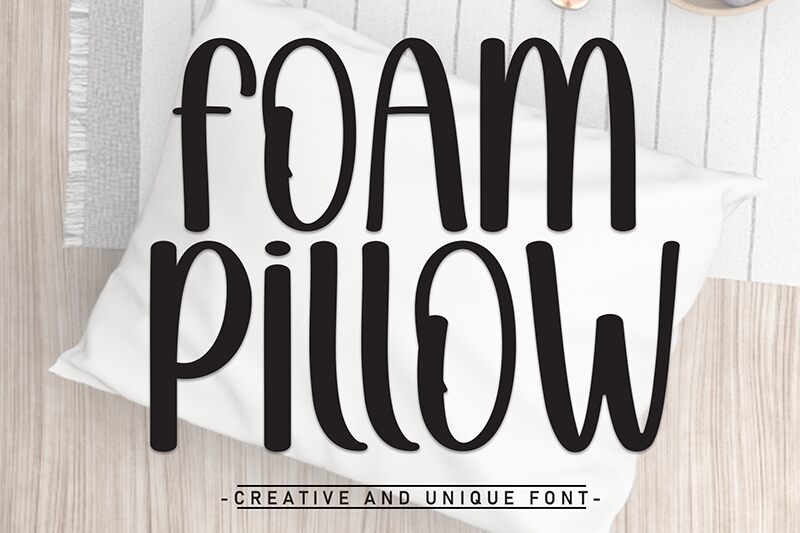
Foam Pillow font designed by Andi Moz is a free font that brings forth the approachable and modern elements of this typography category. The characters have smooth edges with a relaxed baseline that makes them appear inviting and casual. The new typography is ideal for non-official projects or personal projects where fun is the theme that you’d like to follow.
This charming free font is perfect for soft branding, feminine designs, magazine headlines, and some stylish logo designs. It can also be used for kids-related projects especially those that feature toys, characters, TV shows, or even food items.
This is a sweet and friendly handwritten display font. Cute and fun, this free font is ideal for writing wedding invitations, greeting cards, or any other design that might benefit from a playful touch!